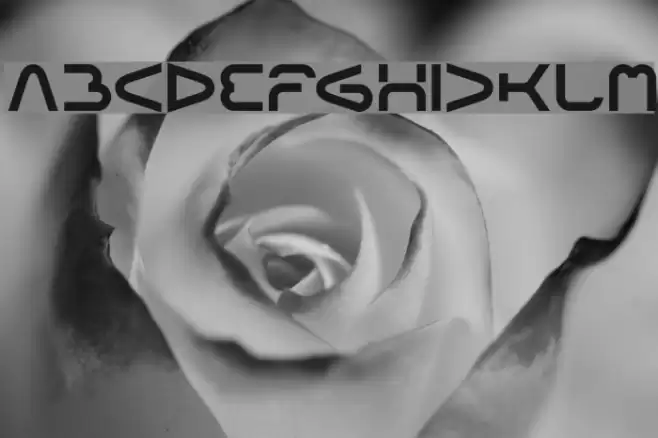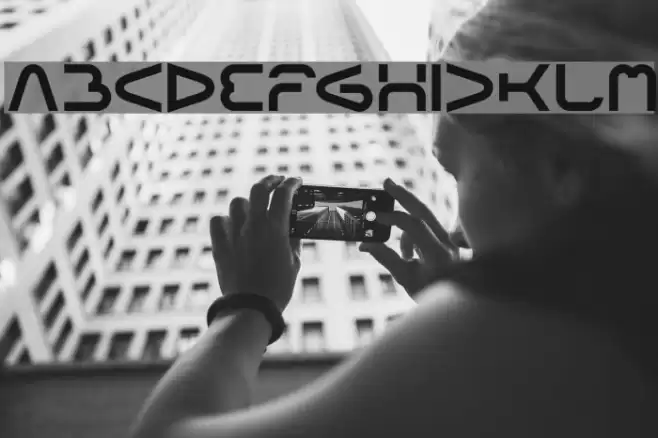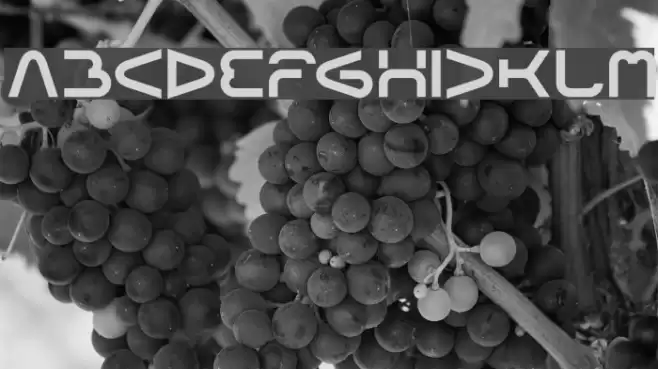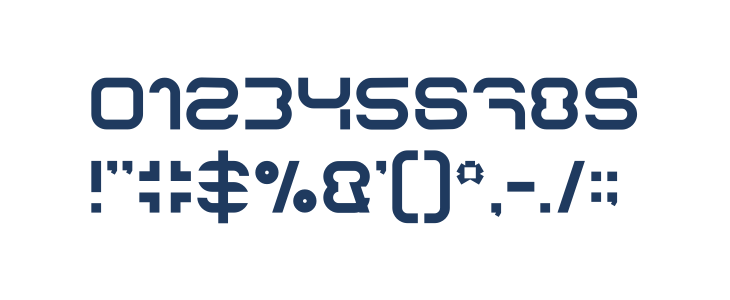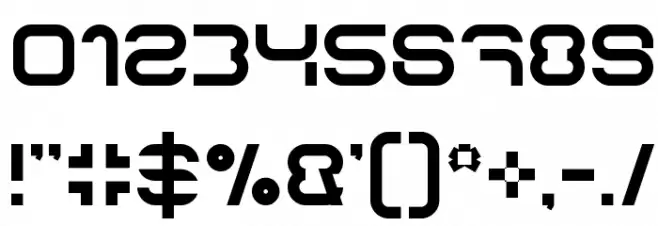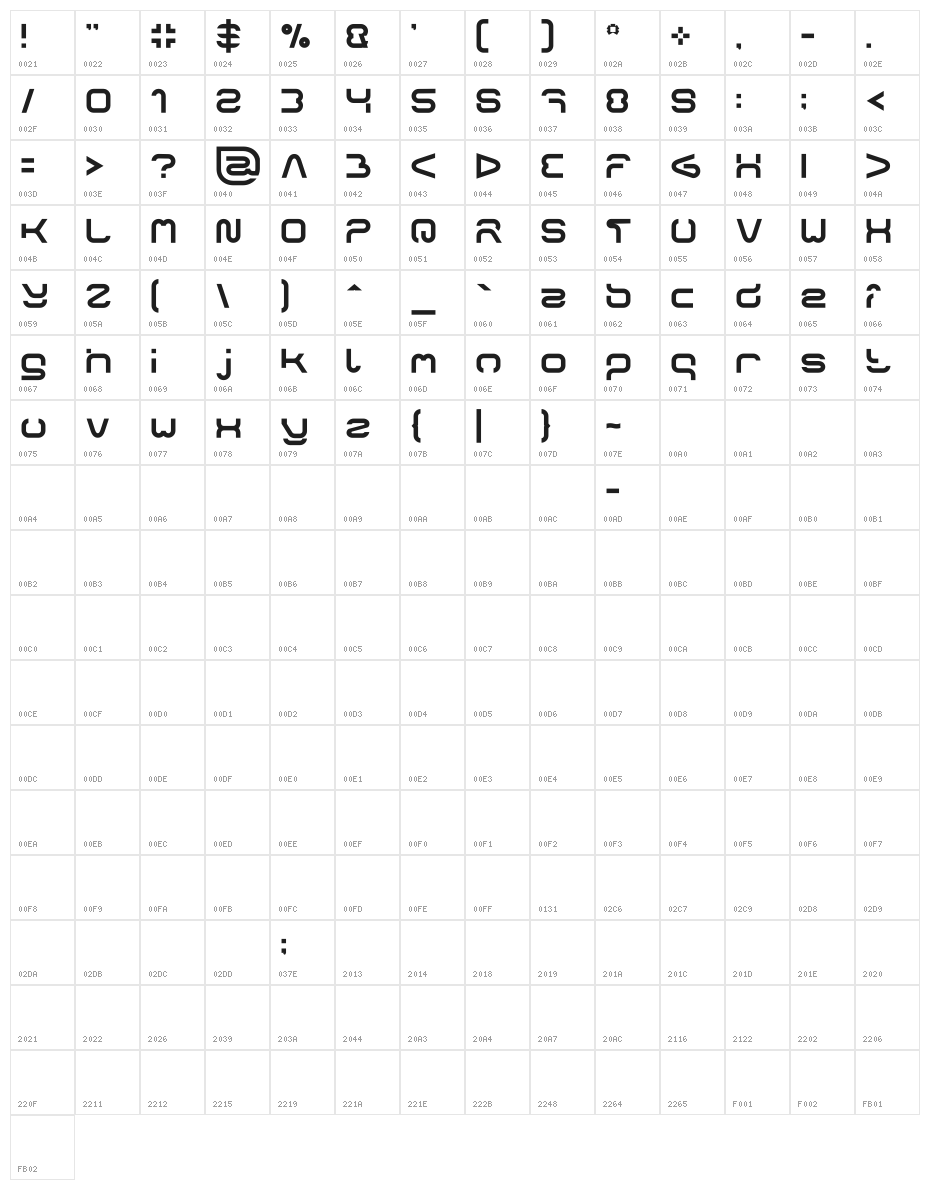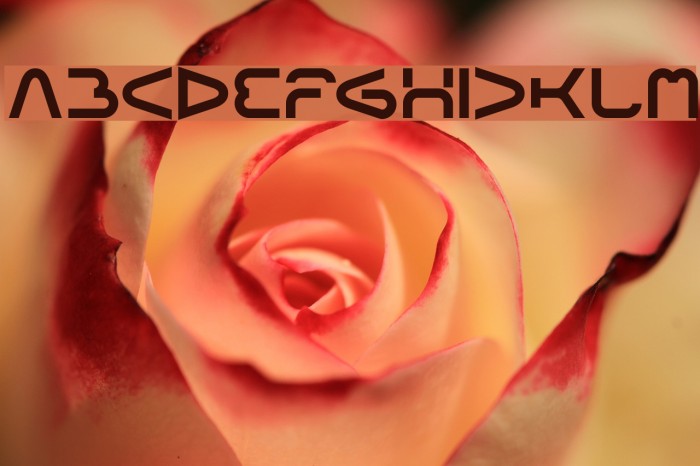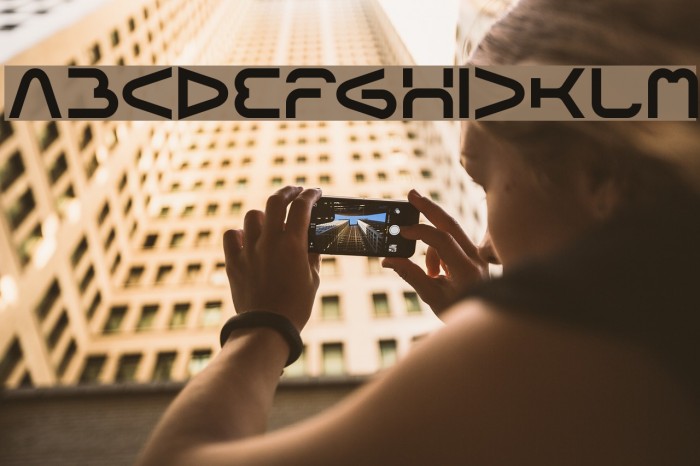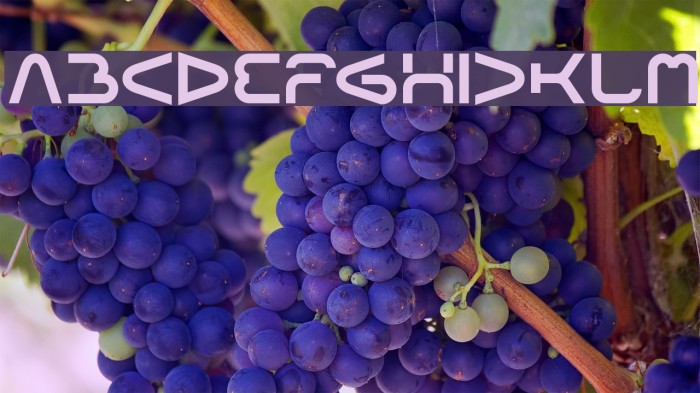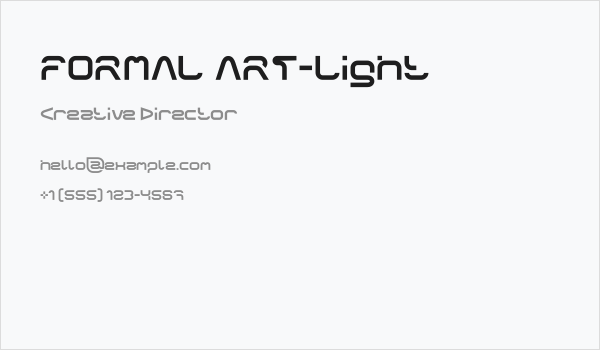
FORMAL ART-Light Font
FORMAL ART-Light Description
This font exhibits a modern and futuristic style with a geometric and structured appearance. The characters are composed of bold, rounded shapes with consistent stroke widths, giving it a sleek and contemporary look. The uppercase and lowercase letters maintain a uniform design, enhancing readability while adding a unique flair. The numerals and special characters follow the same design principles, ensuring a cohesive visual experience. The font's distinct style makes it suitable for projects that require a modern and innovative touch.
A modern, geometric font with bold, rounded shapes and consistent stroke widths from Uncategorized fonts.
- Proposed Projects: Ideal for technology branding, futuristic posters, digital interfaces, and modern advertising campaigns.
- Use Case: Headlines, Logos, Digital Interfaces